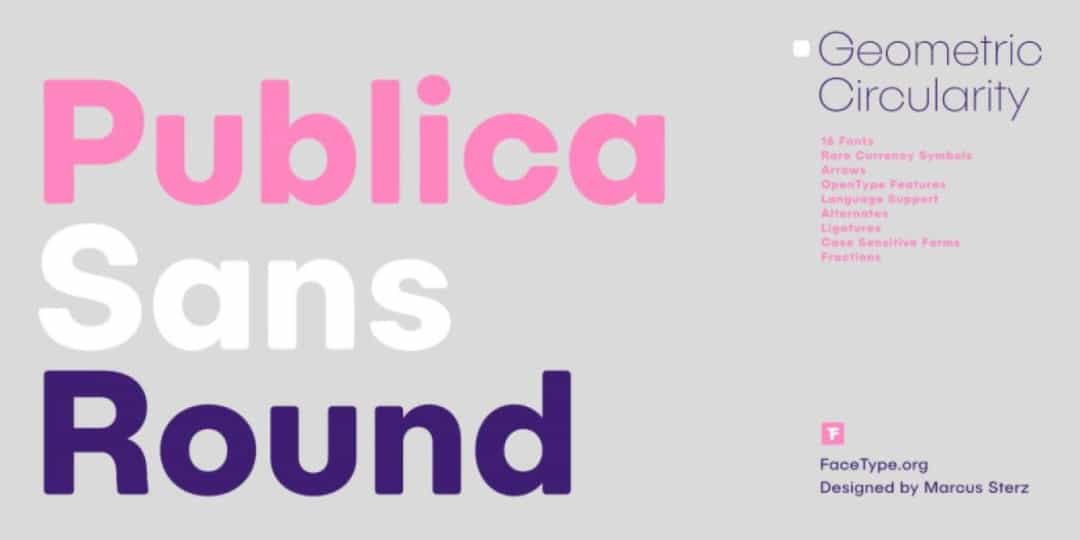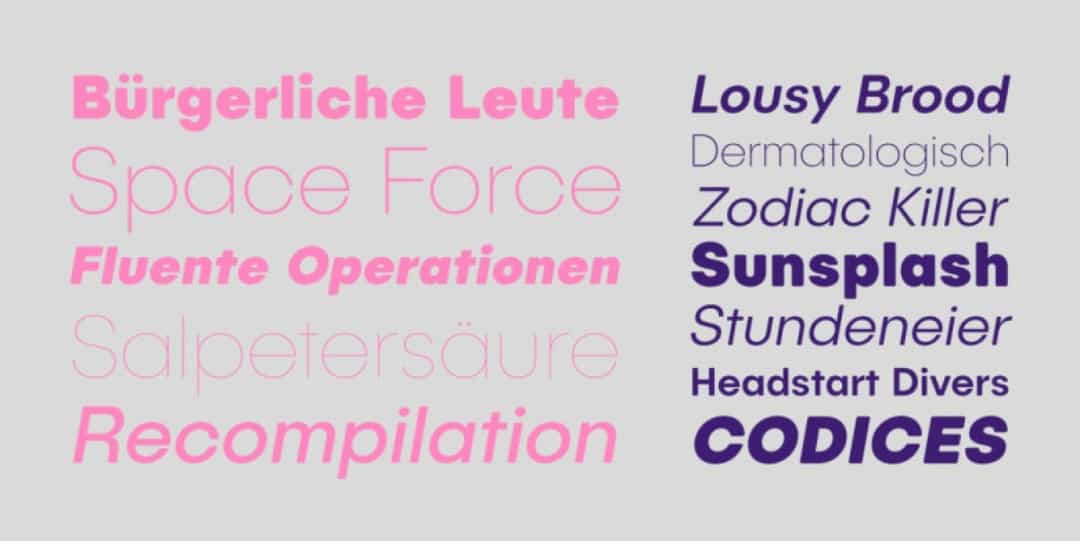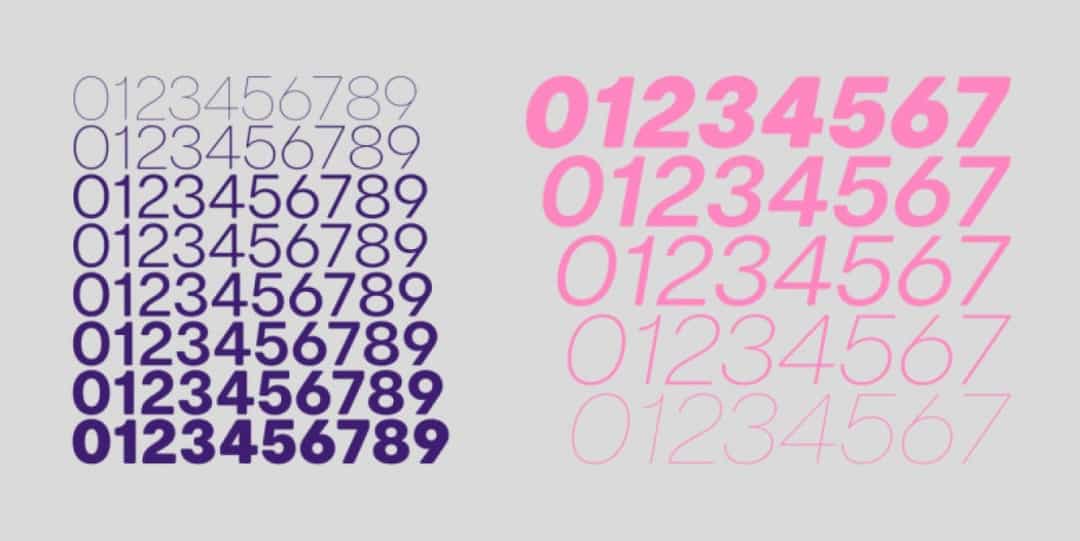
Publica Sans Rounded Font Family is the rounded version of Publica Sans. Packed with OpenType features that will help you craft great typography, including alternates, arrows and rare currency symbols; case-sensitive forms; different sets of figures and discretionary ligatures, Publica Sans Rounded has two sisters that also belong to its family tree.